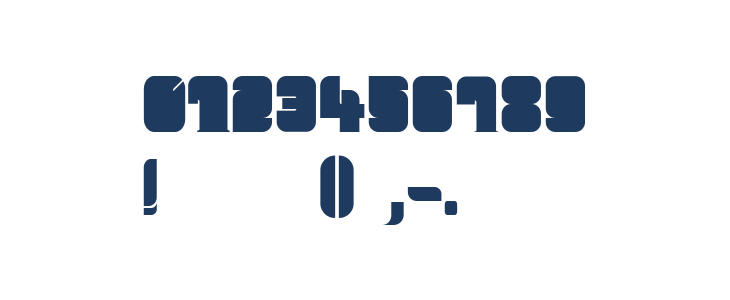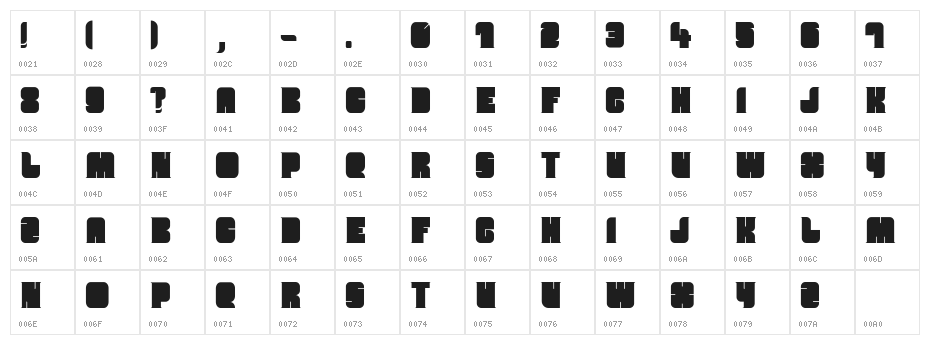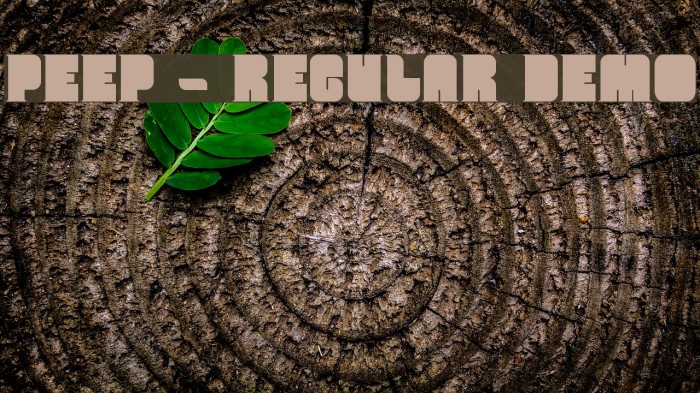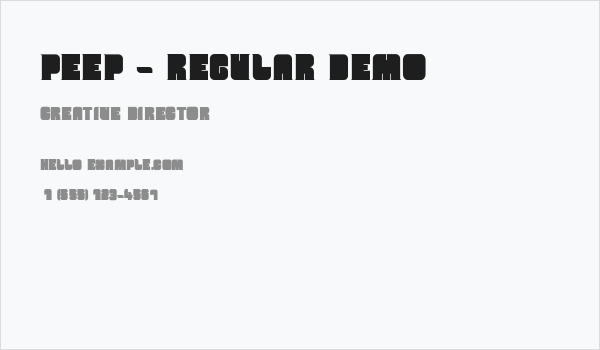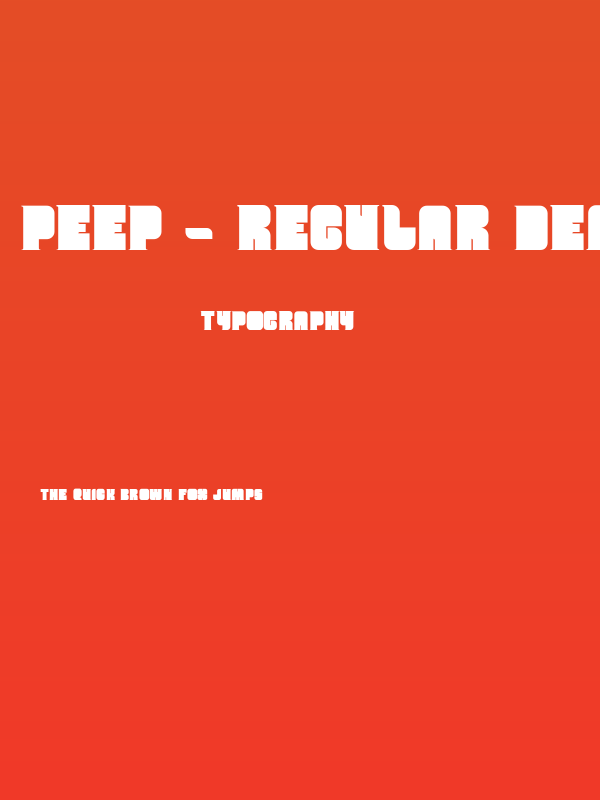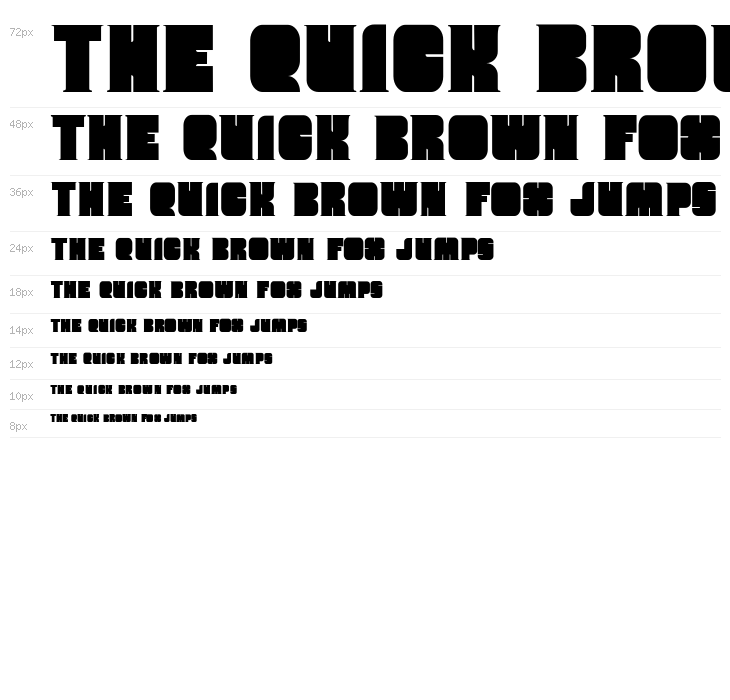
Peep - Regular Demo Font
Peep - Regular Demo Description
This font features a bold and striking design with thick, block-like characters that create a strong visual impact. The letters are uniformly wide, with minimal contrast between strokes, giving it a monolithic appearance. The geometric shapes and sharp edges contribute to a modern and industrial feel, making it ideal for attention-grabbing headlines and branding. The font's unique style is characterized by its solid, filled-in forms, which ensure high legibility even at smaller sizes. Its boldness and uniformity make it suitable for projects that require a strong and assertive typographic presence.
Proposed ProjectsIdeal for posters, logos, branding, and headlines that require a strong visual impact.